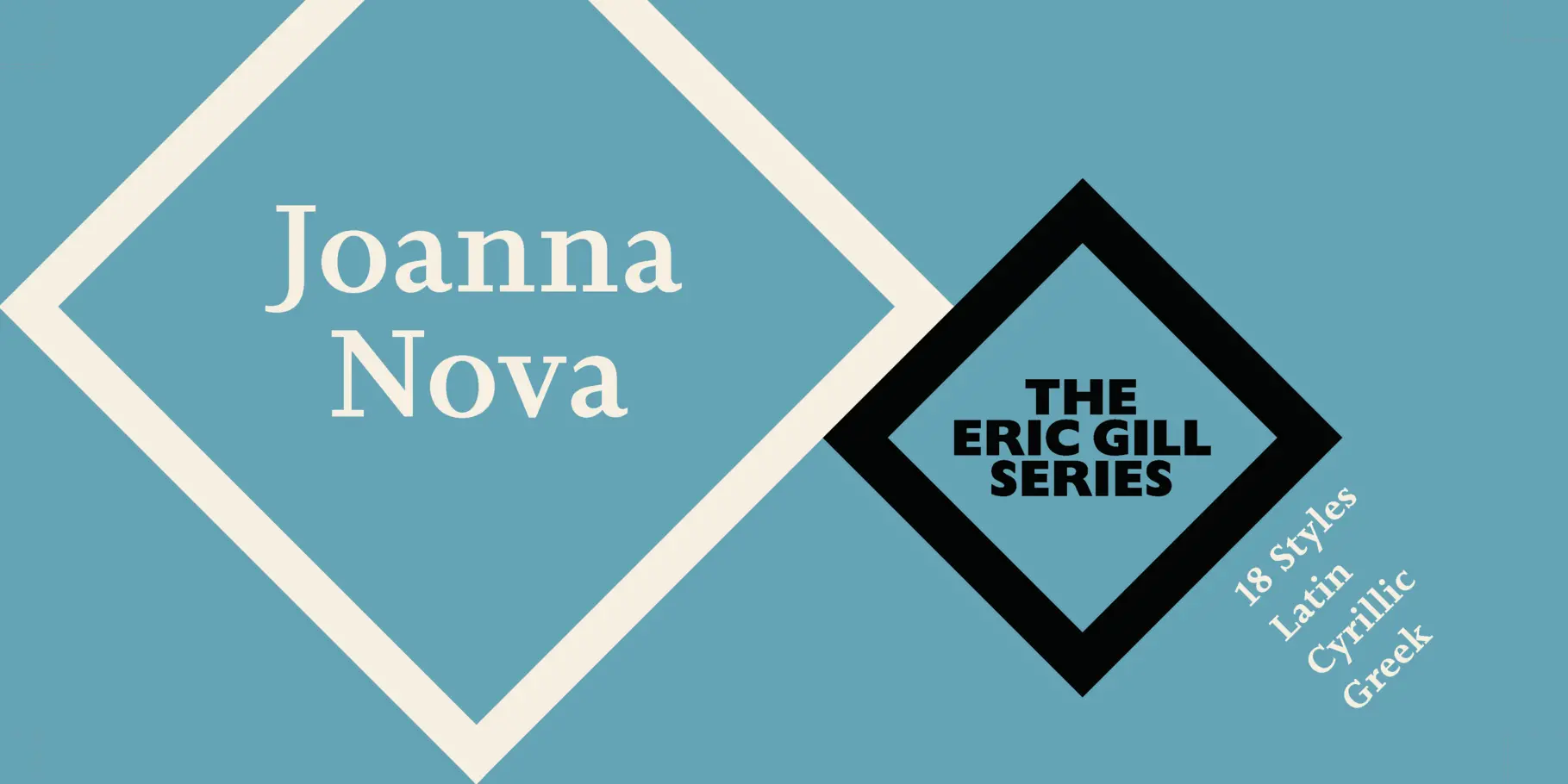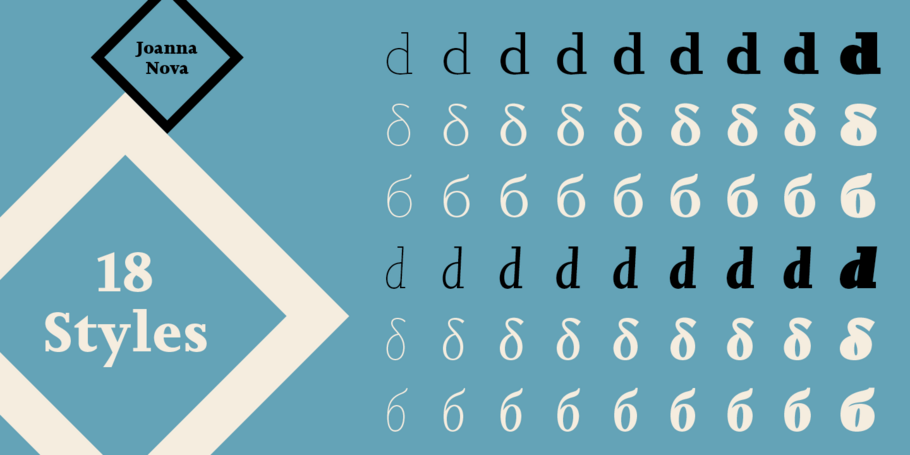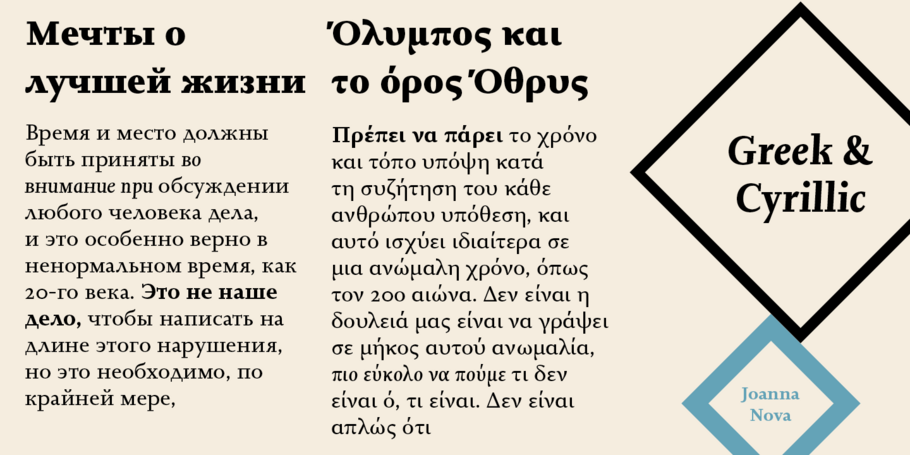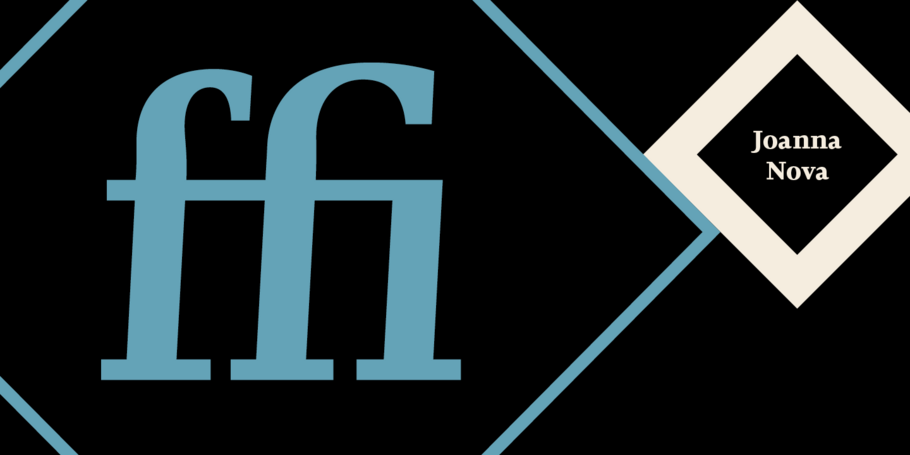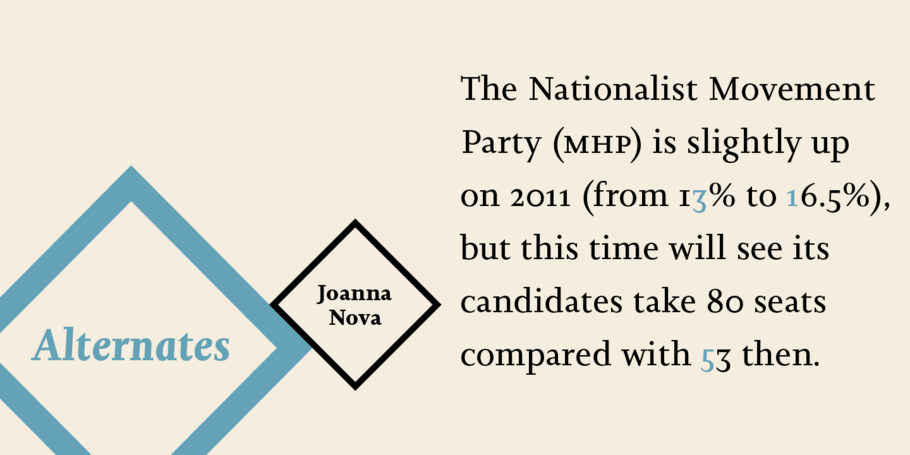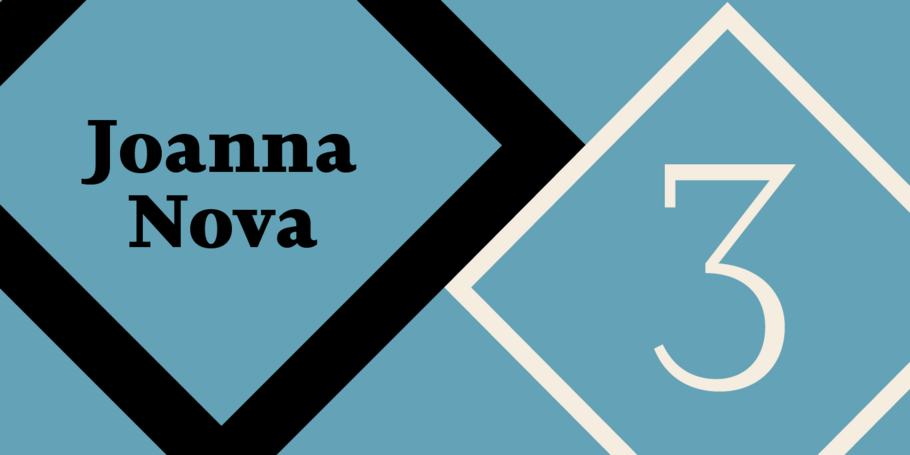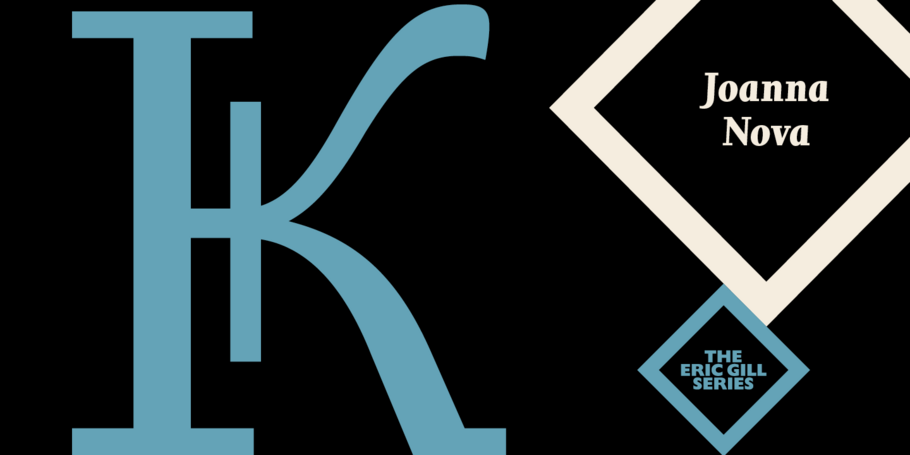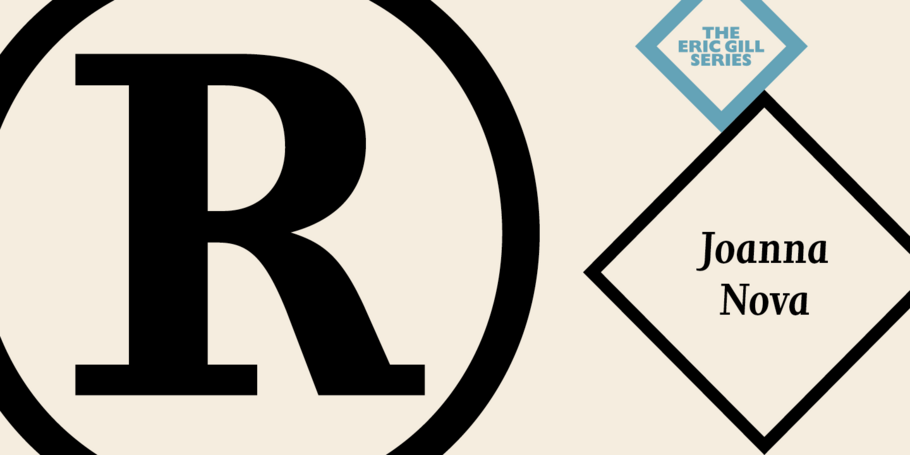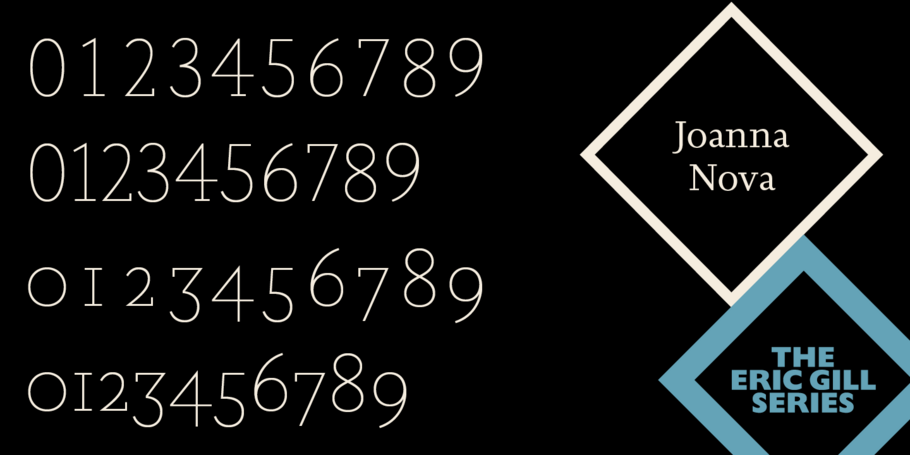
Joanna Nova®
The Eric Gill Series.
The Eric Gill Series is a collection of 77 fonts in three families: Gill Sans Nova, Joanna Nova and Joanna Sans Nova. All the typefaces are derived from the original work of the influential British artist Eric Gill (1882-1940), acclaimed in his lifetime as a sculptor, letter-cutter and type designer. These are contemporary digital typefaces – with a wide range of weights, alternate characters and extended language support – that pay homage to Gill’s original designs.
The Joanna® Nova design, by Monotype Studio designer Ben Jones, is an extensive update to Eric Gill’s original Joanna typefaces and brings this much admired - but underused - slab serif typeface into the 21st century. Joanna Nova features 18 fonts - more than twice as many as the original Joanna - with a wide range of weights including thin and ultra black, which were not available in the original design. Every glyph has been redrawn using a variety of reference sources, including Gill’s original sketches and the copper patterns used in Joanna’s initial production.
The Joanna® Nova design, by Monotype Studio designer Ben Jones, is an extensive update to Eric Gill's original Joanna typefaces and brings this much admired - but underused - slab serif typeface into the 21st century. Joanna Nova features 18 fonts - more than twice as many as the original Joanna - with a wide range of weights including thin and ultra black, which were not available in the original design. Every glyph has been redrawn using a variety of reference sources, including Gill's original sketches and the copper patterns used in Joanna's initial production. When Jones set out to design Joanna Nova, he saw that the 'real Joanna' was not immediately evident. "Some of Gill's original drawings have a sloped 'M'; there is also a 'K' and 'R' with a curled leg and a letter 'd' without the flat bottom," he explained. "Is this Joanna? Or is it the version used to print Gill's Essay on Typography? Or is it the digital version with which most people are surely more familiar than any other version? Ultimately, I think, none of these and all of these were 'Joanna' because, as with any typeface, it is more the idea or concept behind the typeface that makes it what it is. My approach was to create a version of Joanna that appears in your mind when you think of Joanna."Jones noted that one of the most distinguishing aspects of Joanna is the italics; and that, for reasons unknown, many of the characters in the current versions are much more condensed than those in the hand-set fonts of metal type., The newer designs being almost unusable at small sizes. The italics in Joanna Nova have been reworked to be more legible and closer to their original widths.
Joanna Nova expands the original Joanna in several ways that open up new typographic possibilities, These additions include several new weights, support for Greek and Cyrillic scripts, small caps for all scripts in both upright and italic styles, several numeral options and a host of context-sensitive ligatures.
The Joanna Nova typeface family is part of the new Eric Gill Series, drawing on Monotype's heritage to remaster and expand and revitalize Eric Gill's body of work, with more weights, more characters and more languages to meet a wide range of design requirements. The series also brings to life new elements inspired by some of Gill's unreleased work, discovered in Monotype's archive of original typeface drawings and materials of the last century.
Born in the UK, Ben Jones spent his formative years in Switzerland before returning to England to study Typography at the University of Reading. After completing the course, Ben's focus increasingly shifted towards type design, eventually leading to his completion of the MA Typeface Design course at the University of Reading in 2011.